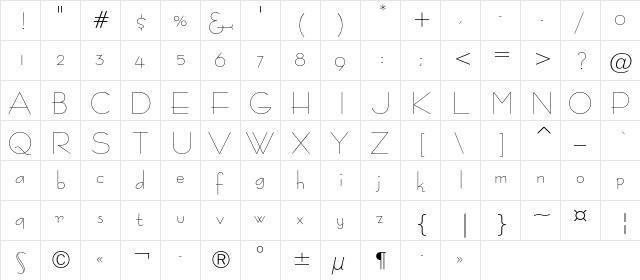
BertaAP Regular
Design Context for BertaAP Typeface
BertaAP is a composed and adaptable typeface that performs quietly and consistently across a wide range of design contexts.